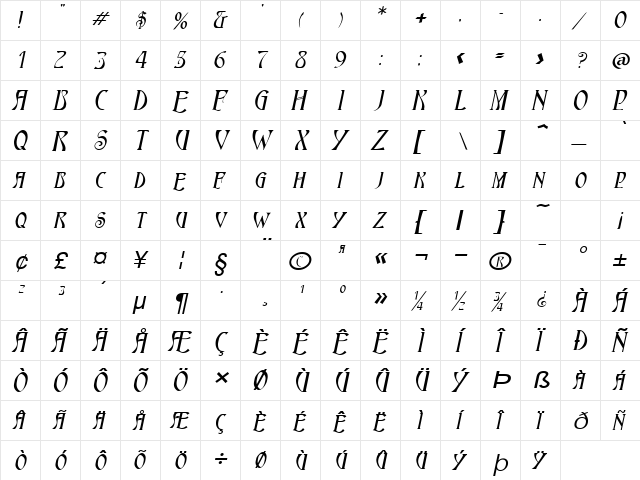
NouveauExtended Italic
Design Context for NouveauExtended Typeface
NouveauExtended is a composed and adaptable typeface that performs quietly and consistently across a wide range of design contexts. The dynamic lean of this cut emphasises speed and emphasis in any layout.
Pro Tip: Use NouveauExtended for emphasis, pull quotes, and subheadings where its slanted energy can add rhythm to the layout.